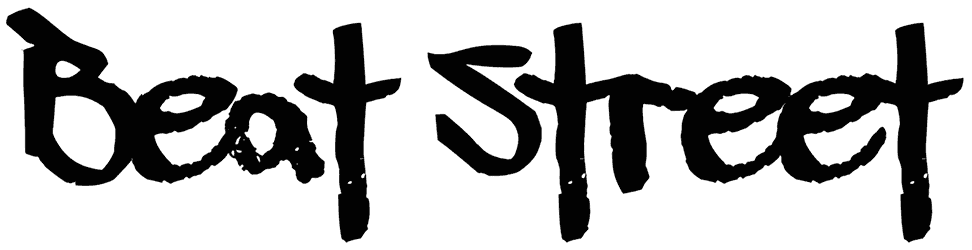
Beat Street Font
Designed byCharakter Typen
Script fonts are not always elegant and glamorous! Beat Street is a representative of handwritten fonts that do not have elaborate lines in their appearance and look more like tattoo fonts. This font has relatively thick letters with uneven sizes, which create an interesting design when they work together.
So, you no longer need to clutter your designs with additional decorations. This graffiti font has a decorative sense inside itself, which can be displayed in the logos and headlines inventions.